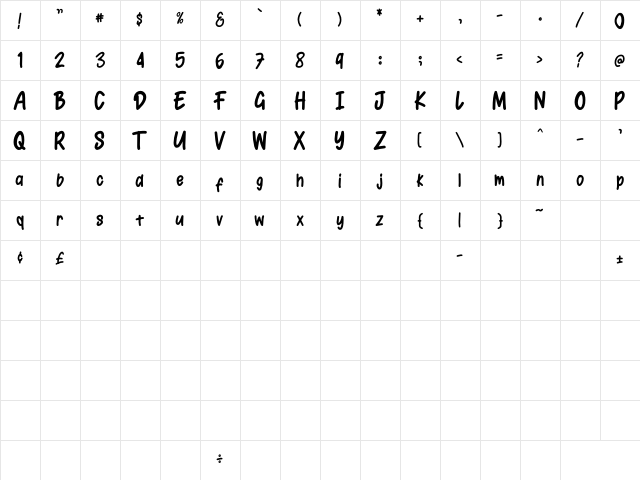
Gealliea Regular
| Designer | Adhi Setya |
Design Context for Gealliea Typeface
Gealliea is a composed and adaptable typeface that performs quietly and consistently across a wide range of design contexts.